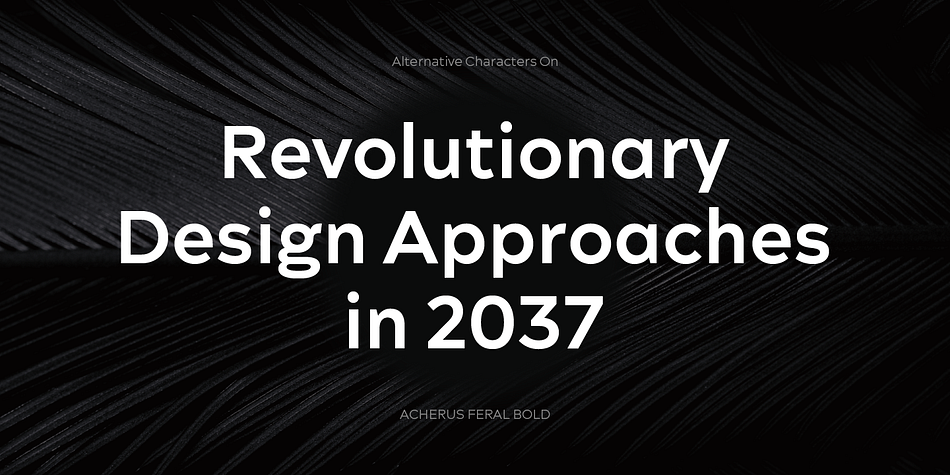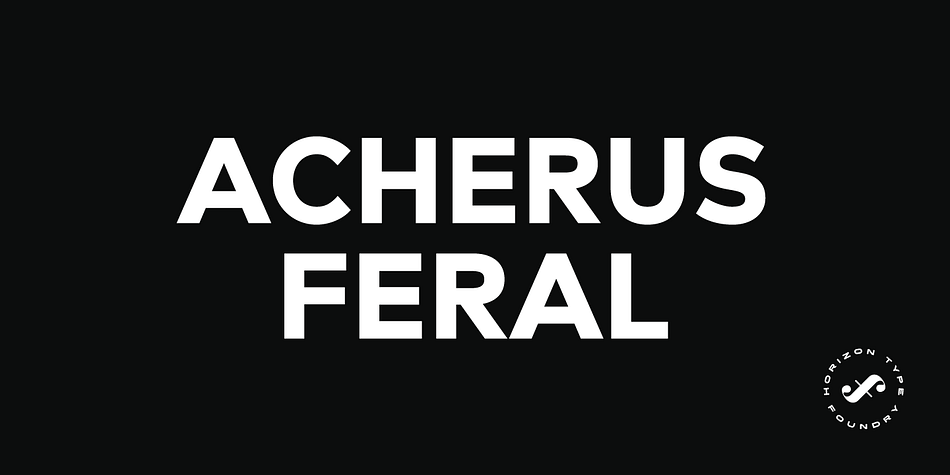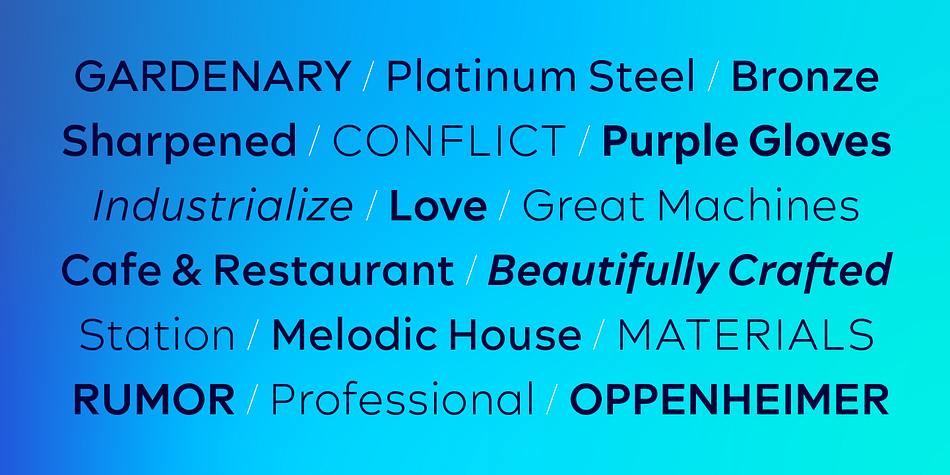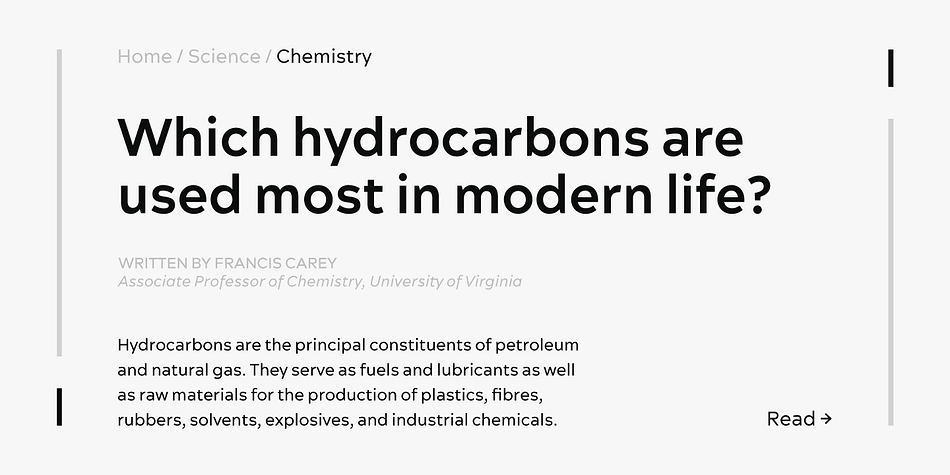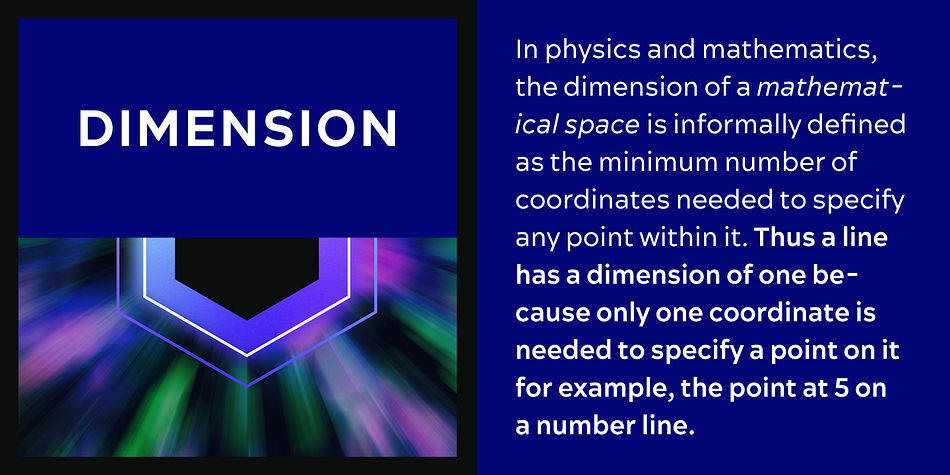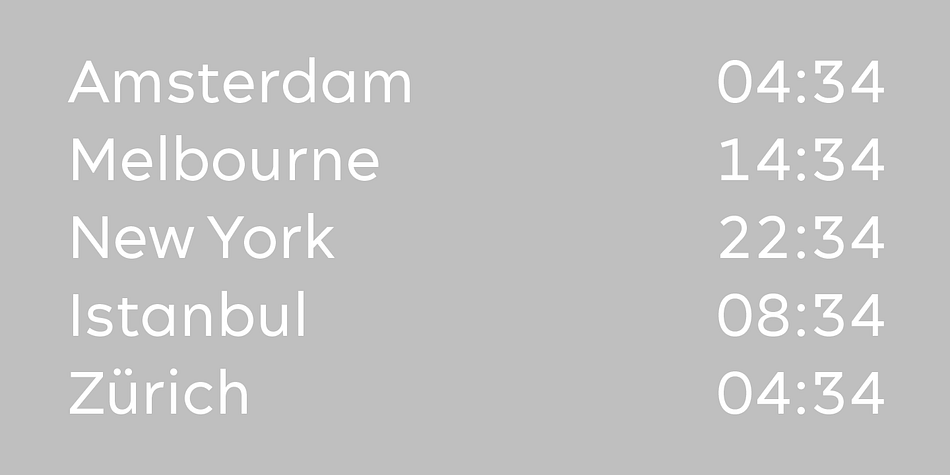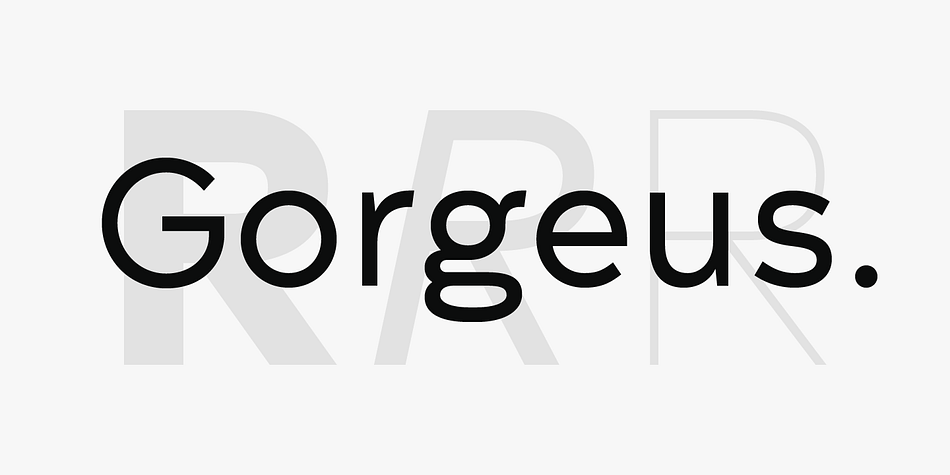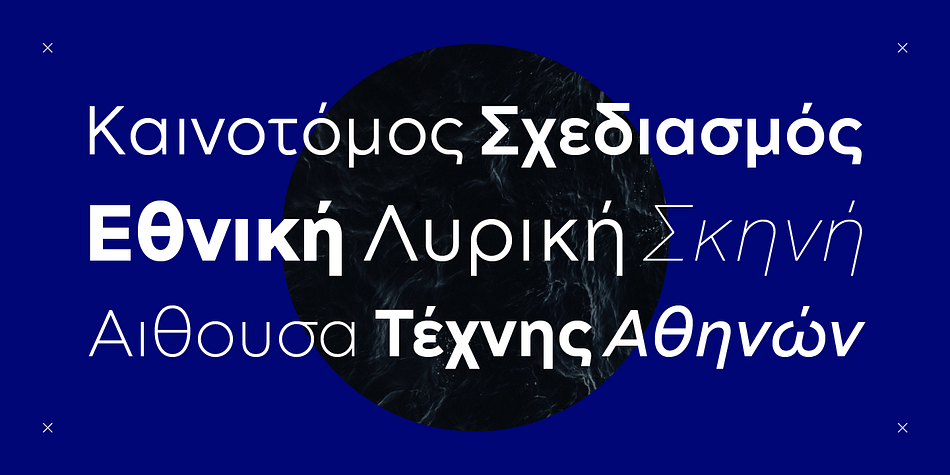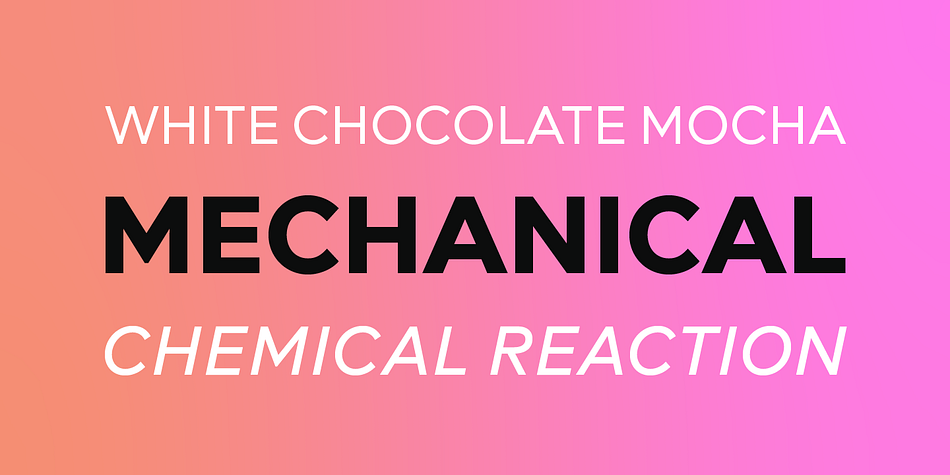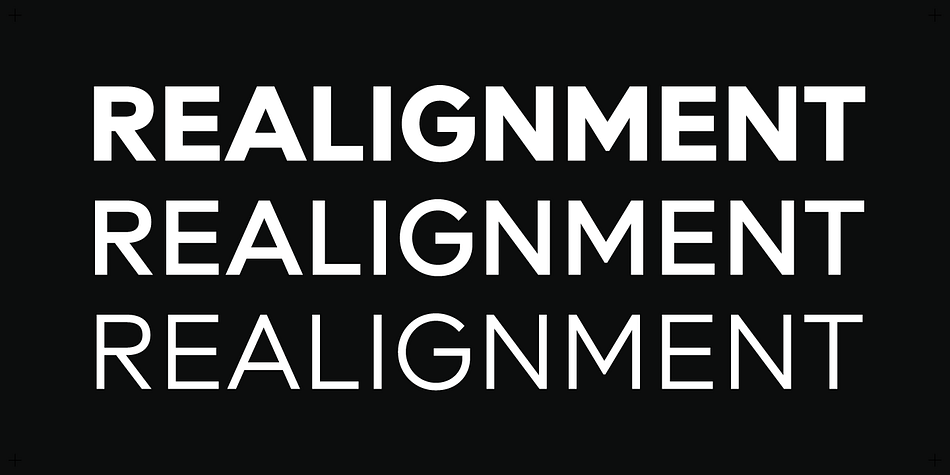
Designed by Ufuk Aracıoğlu, Acherus Feral is a sans serif font family. This typeface has twenty styles and was published by Horizon Type.
Acherus Feral is sharpened version of Acherus Grotesque.
In this new version all sharp edges are flattened and rounded corners are sharpened. Alternative character “G” and optional “t” character have been added. Some of the characters like “A,K,M,N,Q,R,V,W,Z,v,w,z” have been changed completely for the stability of the typeface, in this way it looks more confident and serious. As you can see on the banners, Feral is excellent choice for many platform needs.